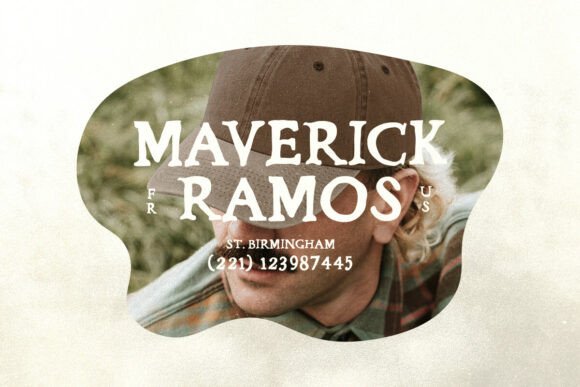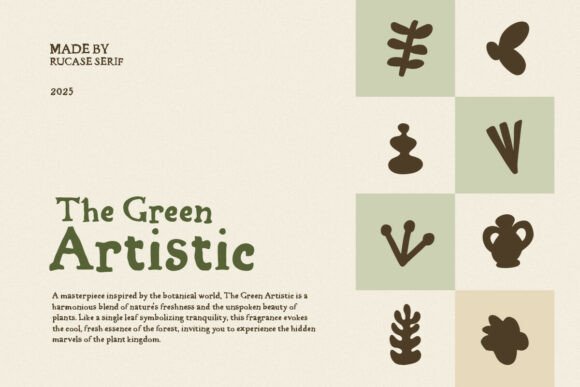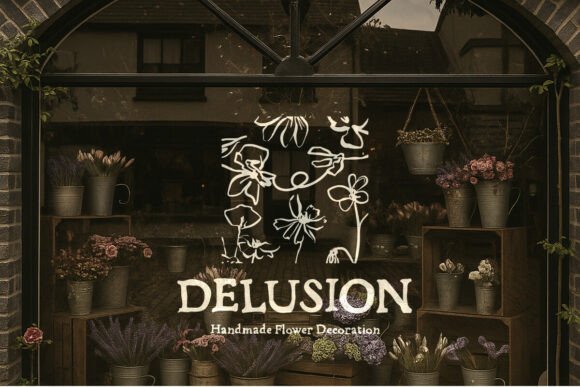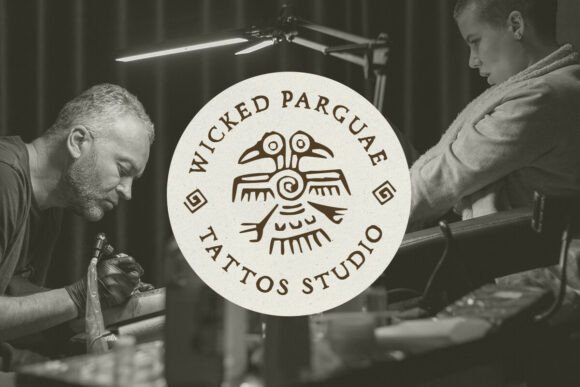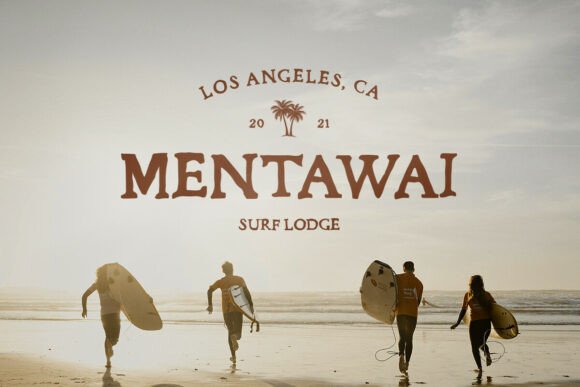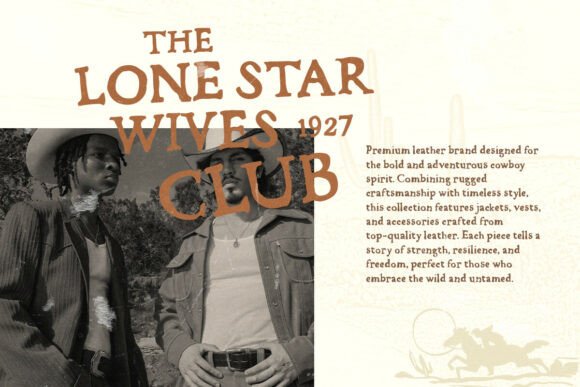
Introduction to Rucase Font
Do you remember the feeling of flipping through a vintage book or magazine, the tactile experience of paper and ink, the charm of a bygone era? For designers, this sensation is not just nostalgic, but also a valuable resource for creating timeless and captivating designs. And that’s where the Rucase Font comes in – a refined handwritten serif font that embodies the essence of human touch and artisanal craftsmanship.
With its balanced strokes and elegant curves, the Rucase Font is perfect for brands that want to convey a sense of nostalgia and sophistication. Its versatility makes it an ideal choice for logos, packaging, posters, and editorial designs, allowing designers to add a touch of classic warmth to their creative projects.
Key Features of Rucase Font
- Unique, hand-drawn design style perfect for creative projects and design resources.
- Perfect for use in a variety of creative projects, including logos, branding, and typography-based designs.
Honest Review: Rucase Font
I recently stumbled upon the Rucase Font, and I must say it’s a great addition to any designer’s toolkit. As a design resource, it’s perfect for creative projects that require a unique touch. The font’s minimalist design makes it easy to read, even on a transparent background.
Here are some aspects that work well: ✨
- High quality: The font is crisp and clean, making it suitable for various design applications.
- Customizable: The font’s versatility allows designers to experiment with different styles and combinations.
- Limited character set: The font may not have all the characters you need, which could be a problem for complex design projects.
- Not suitable for body text: Due to its minimalist design, it’s not ideal for large blocks of text.
Overall, I’m impressed with the Rucase Font. It’s a great resource for designers looking to add some creativity to their projects. While it may have some limitations, it’s definitely worth considering for your next design project.
Tips for Getting the Most Out of Rucase Font
To get the most out of the Rucase Font, use it with a transparent background for a clean and modern look.
Also, experiment with different font sizes and styles to add visual interest to your design.
Common Use Cases for Rucase Font
The Rucase Font is ideal for use in a variety of creative projects, including:
Business presentations, marketing materials, and social media graphics.
Wedding invitations, event flyers, and party decorations.
Blog posts, articles, and online content.
Is the Rucase Font suitable for use on a transparent background?
Yes, the Rucase Font is designed to be used on a transparent background. The font has a transparent background, which makes it ideal for use in graphic design, web design, and digital art projects where a transparent background is required. This feature allows you to easily place the font on top of any background image or color without any issues.